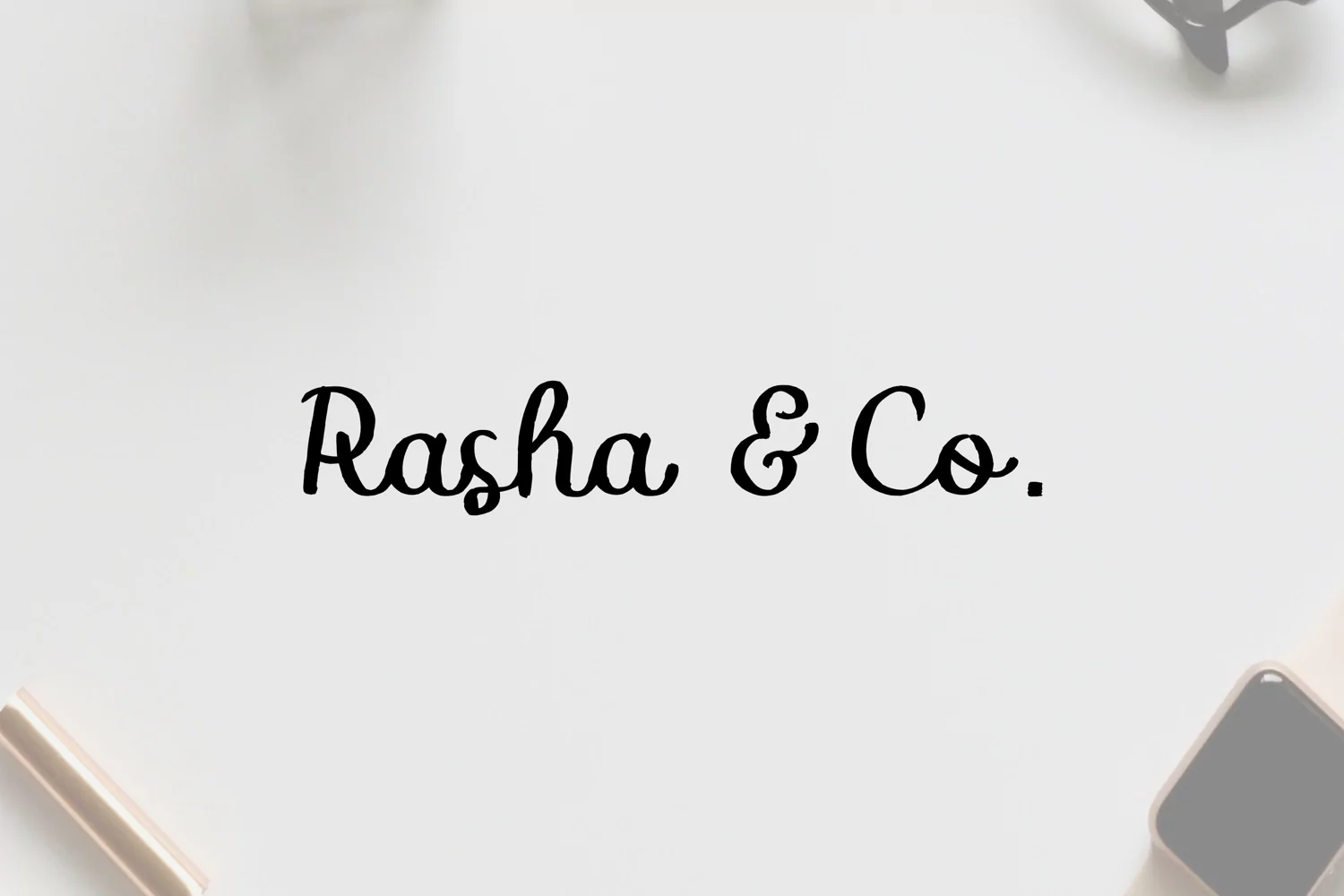
Qalla is a beautiful handwritten script font. It is perfect to create posters, printed quotes, digital designs, or any projects that require a nice and elegant look!
Qalla